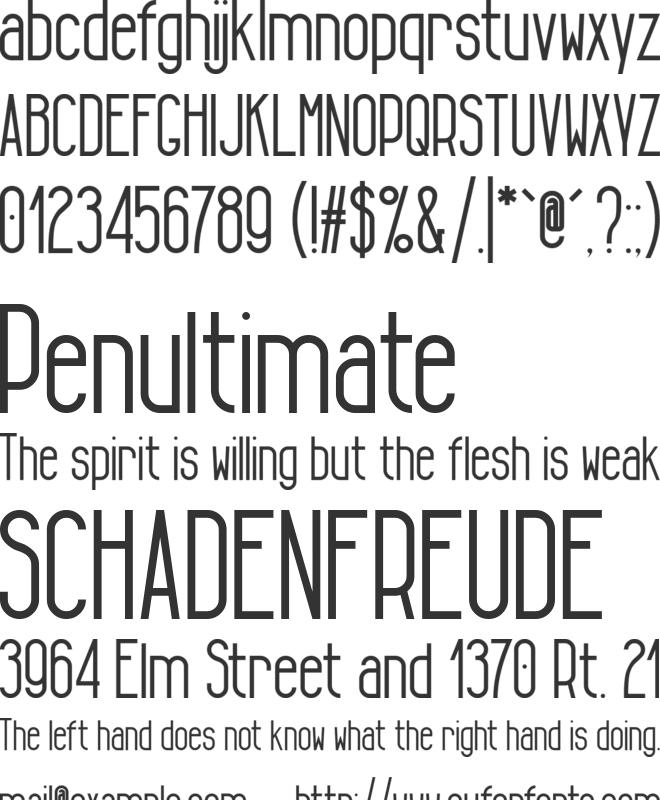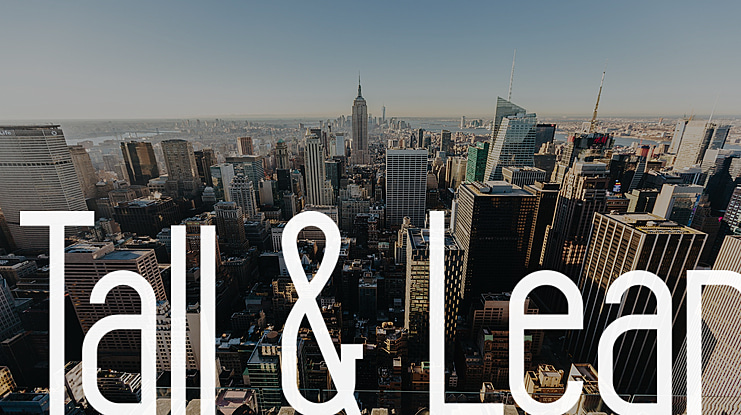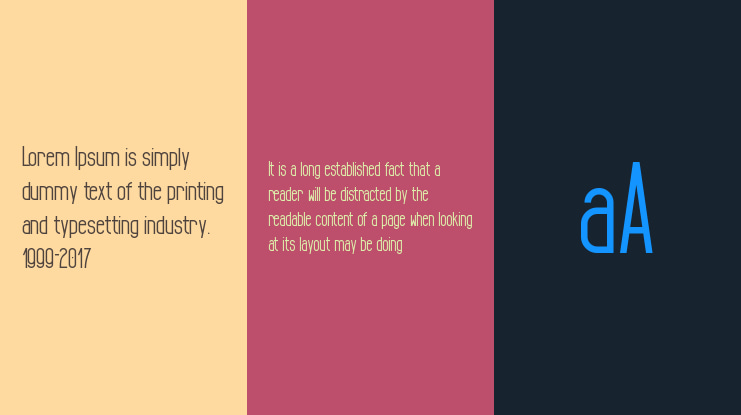
Tall & Lean Font
Stephen Knouse
A font long-time coming. Designed to be a font family with backward slanting letters, I started this font while I was in the throes of finishing Petal Glyph and had nearly finished the entire family of upright and slanting letters. I placed it on the back burner until I could figure out what to do with it and how to fix the back-slant issues that were cropping up. Fast forward to mid/late 2013, I dusted the font off and decided that I needed to rebuild the font from scratch using the old version as a template to unify weight, dimensions, and kerning. I also discovered that I was missing some glyphs, so I added them as well to make the font more complete. Here is the final upright project in it's regular weight. The free-usage license for this font is included along with the TTF in the zip file.